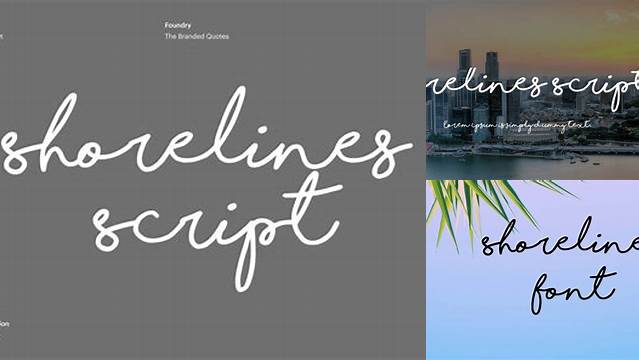
H2: Unveiling the Charm of Shorelines Script Fonts
So, what exactly is a Shorelines Script font? Think of it as a handwritten masterpiece, digitally brought to life. These fonts are typically characterized by their flowing, elegant strokes, often mimicking the natural curves of handwriting. They're perfect for adding a personal touch, a sense of sophistication, and a dash of artistry to any design. From invitations and logos to social media graphics and website headers, Shorelines Script fonts can instantly elevate your project. They have a certain romance about them, a feeling of warmth and authenticity that you just can't get from a basic sans-serif font. The beauty of Shorelines Script fonts lies in their versatility. They can be delicate and refined, or bold and expressive, depending on the specific font and how you use it. The curves and flourishes create a visual flow, making them incredibly eye-catching and engaging. They're the kind of fonts that make people stop and take notice. When choosing a Shorelines Script font, consider the overall tone and message of your project. Are you aiming for a classic, vintage feel? Or something more modern and playful? The right font can make all the difference in conveying your intended message. These fonts add a personal touch to your projects, the same way you add a personal touch using a calligraphy pen.
Keep in mind that not all Shorelines Script fonts are created equal. Some are more legible than others, particularly at smaller sizes. Always test the font in various sizes and contexts to ensure it's easy to read and that its aesthetic qualities are preserved. The design of these fonts reflects a deep appreciation for the art of handwriting. The calligraphic elements, such as the weight, the angle of the strokes, and the serifs, are essential to the appeal of the font. It's an homage to the past, a recognition of the beauty of the handcrafted word. The use of Shorelines Script fonts makes a design seem more unique. They are much more interesting and attractive than the most boring fonts.
H3: The Allure of Handwritten Fonts
Handwritten fonts, in general, possess a unique allure that draws us in. They offer a sense of intimacy and authenticity that computer-generated fonts often lack. They feel personal, as if they have been touched by a human hand. This is particularly true of Shorelines Script fonts, which often mimic the delicate curves and flourishes of cursive writing. There is something inherently beautiful about the imperfections of handwriting, the slight variations in stroke weight, the subtle tilts and angles. These nuances add character and depth to the text. It is this very element that makes them so compelling. The use of Shorelines Script fonts can significantly enhance the perceived value and quality of your work. It shows that you took the time to choose a font that reflects your own style and values, and that you care about the details. It's a way to make your projects stand out from the crowd and leave a lasting impression. In a world dominated by digital interfaces, the use of handwritten fonts reminds us of the importance of human connection and creativity. It's a way to create a sense of nostalgia, to evoke a feeling of warmth and comfort, and to express a unique personality. This is what distinguishes the great from the good.
When working with handwritten fonts, it's important to consider legibility. While their artistic qualities are undeniable, some fonts can be difficult to read, especially at small sizes. It's essential to test your chosen font in various contexts to ensure that it is easy to understand and that it complements the overall design. The right handwritten font can elevate your design, but the wrong one can make it less than perfect. It is always better to opt for a design that fits with the message you are trying to convey. The aim is always to find the middle ground and to have fun with your design.
H3: Google Fonts as a Font Resource
Google Fonts is an excellent resource for free fonts, including a selection of Shorelines Script fonts. Google Fonts is a vast library of fonts that you can use for your personal or commercial projects. The beauty of Google Fonts is that they are all open-source, meaning they are free to use and distribute. Google Fonts is also incredibly easy to use. You can browse the fonts online, download them directly to your computer, or even embed them into your website. The interface of Google Fonts is intuitive and user-friendly. You can easily filter fonts by style, language, and popularity. The search functionality is very powerful, allowing you to find fonts that match your specific requirements. It's a great way to experiment with different fonts and find the perfect match for your projects. Google Fonts is the ideal resource for designers of all levels.
In addition to its wide selection of fonts, Google Fonts provides extensive information about each font, including its origin, its designer, and its intended use. This information is invaluable for understanding the context of the font and for choosing the right one for your project. This can help you assess the stylistic suitability of the font, so that you can make an informed choice. Google Fonts makes it simple for you to start using beautiful fonts in your projects. The integration with Google services is seamless, which is an added advantage. You can quickly and easily add fonts to your website or use them in your Google Docs, Slides, and other applications. The library is also constantly updated, so you can discover new fonts regularly.